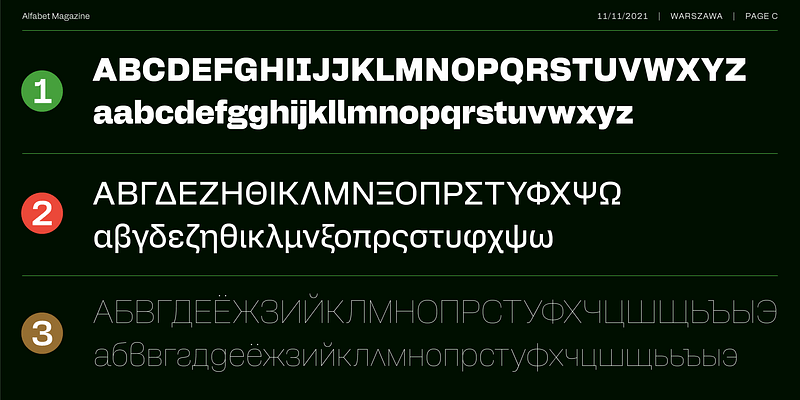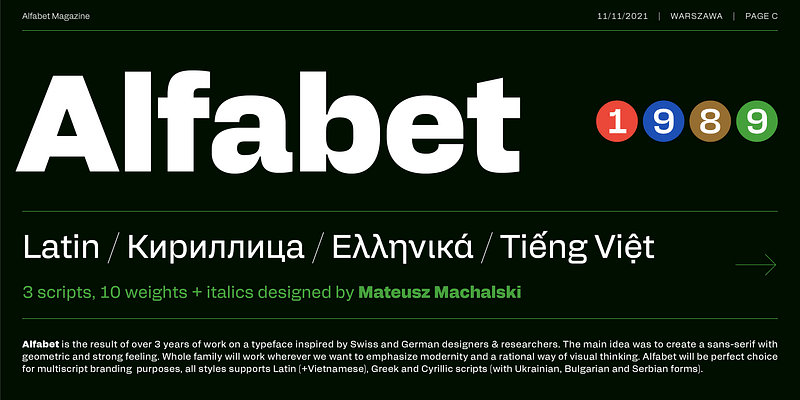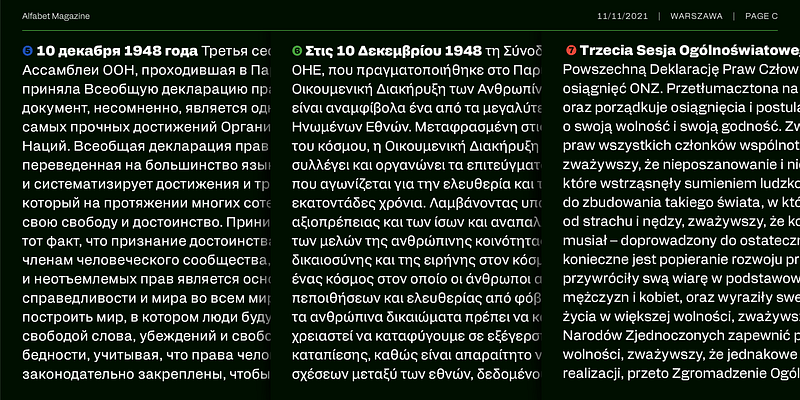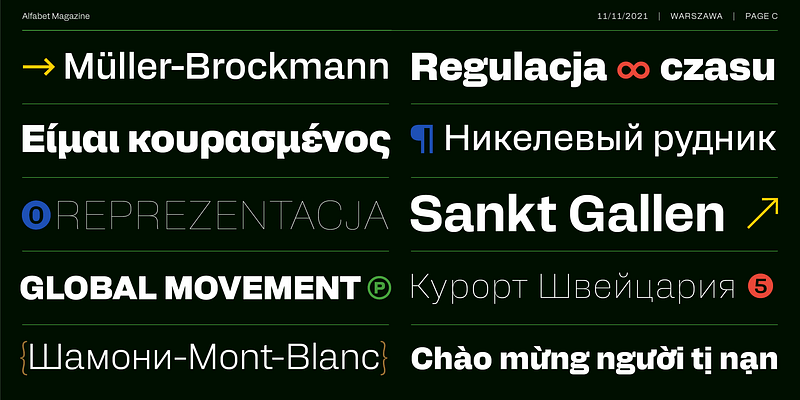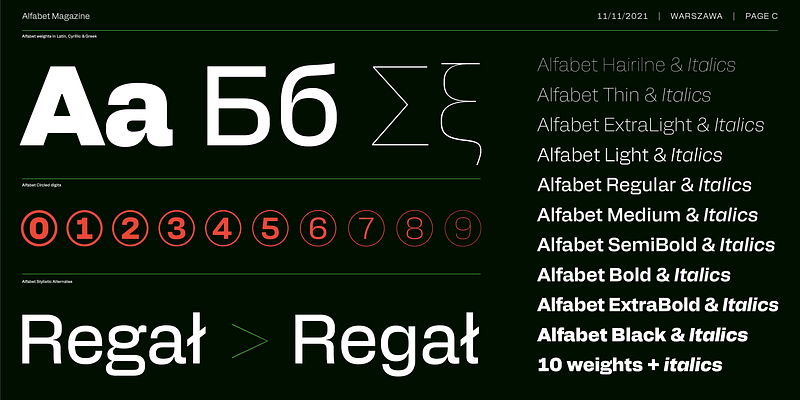
Alfabet is the result of over 3 years of work on a typeface inspired by Swiss and German designers & researchers. The main idea was to create a sans-serif with geometric and strong feeling. Whole family will work wherever we want to emphasize modernity and a rational way of visual thinking. Alfabet will be perfect choice for multiscript branding purposes, all styles support Latin (+Vietnamese), Greek and Cyrillic scripts (with Ukrainian,Bulgarian and Serbian forms). The whole family consists of 20 styles – 10 weights and matching italics. In addition to the rich set of characters, Alfabet includes Alternates, Superscript, Subscript, Ligatures, Arrows set and 7 different styles of digits.